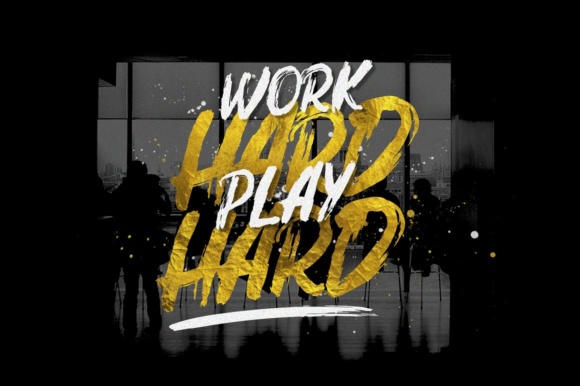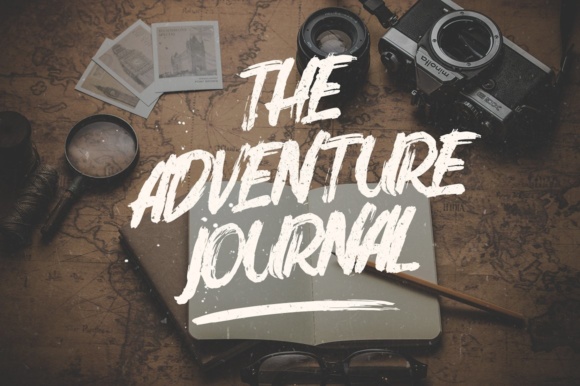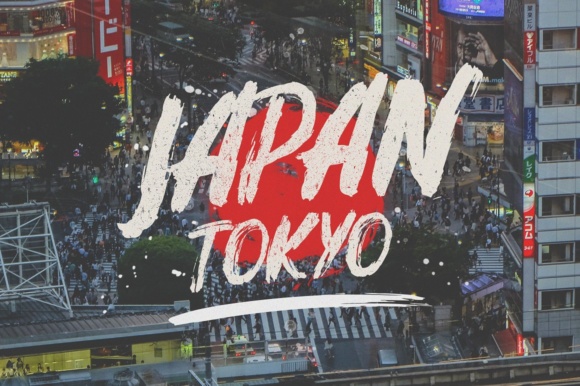
Introduction to Siberia Rough Font
Have you ever been stuck on a design project, searching for the perfect font to give it that extra oomph? I know I have! There’s nothing quite like the feeling of finally stumbling upon the perfect design resource that brings your creative vision to life. For me, that moment came when I discovered the Siberia Rough Font – a brush font bursting with energy that’s perfect for adding a touch of raw, edgy charm to any project.
As a designer, you know how valuable it is to have access to high-quality fonts that can elevate your work and make it stand out. The Siberia Rough Font is a game-changer, with its unique texture and transparent background making it the perfect addition to any design project. And the best part? It’s available for free download, making it a valuable resource for designers of all levels.
Key Features of Siberia Rough Font
- Unique, distressed design ideal for creative projects and artistic expressions
- High-quality font with a transparent background, allowing for easy layering and composition
- Siberia Rough Font is available in a single size, but can be scaled to suit various design needs
- Perfect for adding a touch of rugged, hand-drawn charm to your design projects, from posters and flyers to digital graphics and web design
Honest Review: Siberia Rough Font
As a designer, I’m always on the lookout for high-quality design resources that can elevate my creative projects. Recently, I stumbled upon the Siberia Rough Font, and I’m excited to share my honest review with you.
First impressions are everything, and the Siberia Rough Font did not disappoint. The font’s rugged, distressed texture adds a unique touch to any design, making it perfect for industrial, vintage, or edgy projects. The high-quality design and transparent background make it easy to work with, even for complex layouts.
Here are some things that work well:
- ✨ Unique texture and design that adds a touch of sophistication to any project.
- ✨ High-quality design that’s perfect for printing or digital use.
- ✨ Transparent background makes it easy to work with.
- ⚠️ Limited font weights and styles may not be suitable for all design projects.
- ⚠️ May not be ideal for projects that require a lot of text, as the distressed texture can make it difficult to read.
Overall, the Siberia Rough Font is a great addition to any designer’s toolkit. While it may have some limitations, its unique design and high-quality construction make it a valuable resource for creative projects. With a free download available, it’s definitely worth checking out.
To get the most out of Siberia Rough Font, be sure to use it on a transparent background to create a clean and modern look. You can also experiment with different font sizes and colors to create a unique visual style that suits your project.
Siberia Rough Font is perfect for use in a variety of creative projects, including graphic design, digital art, and even print design. It’s also a great resource for designers who want to add a unique touch to their work without breaking the bank – it’s available for free download!